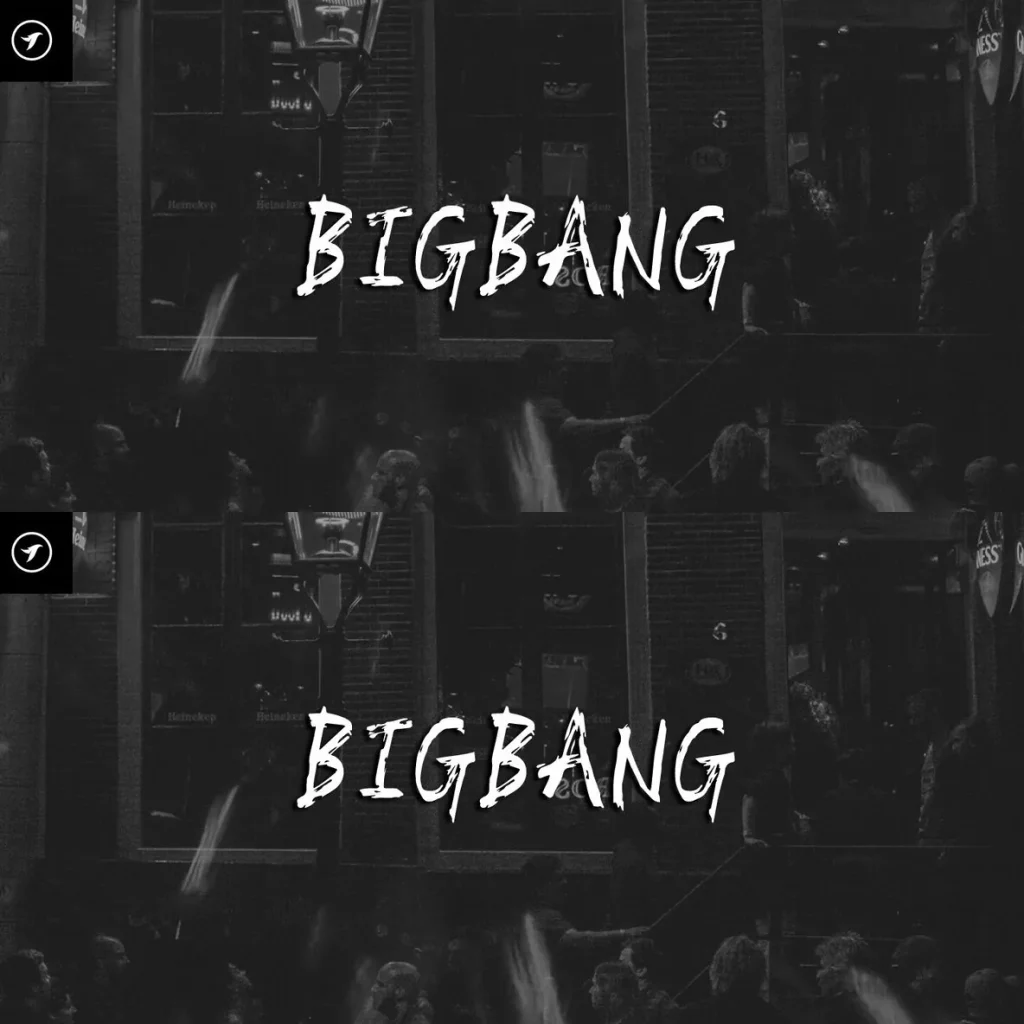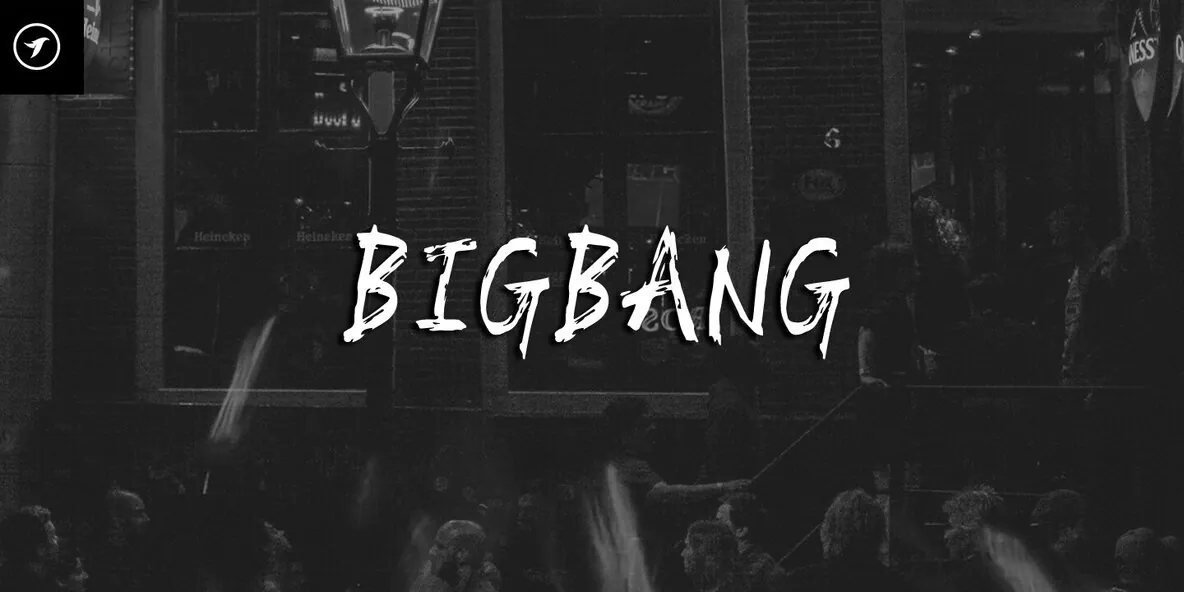
BIGBANG — Brushwork with Impact
BIGBANG is a handmade brush font with energetic strokes, bold movement, and a natural painted appearance. It captures the feeling of expressive hand lettering, giving visual designs a strong sense of creativity and personality while keeping the texture and rhythm of brush-made type.